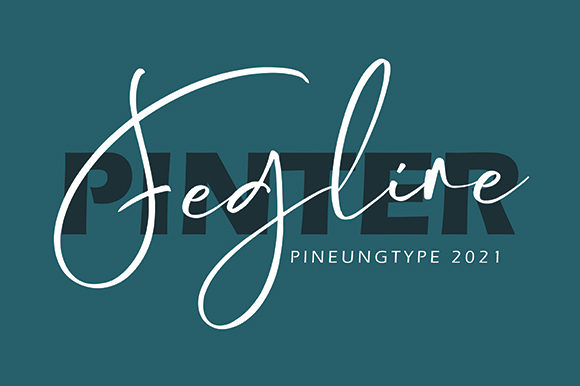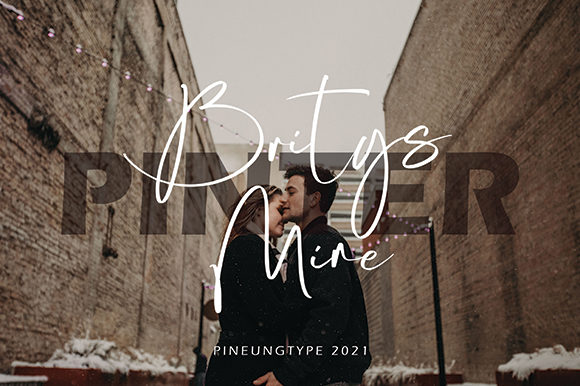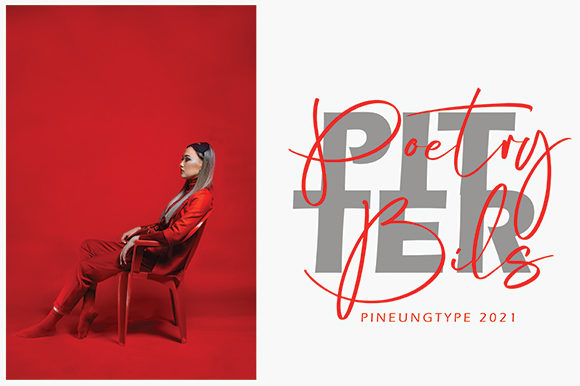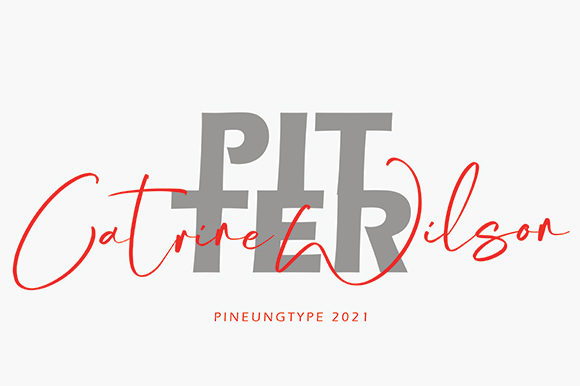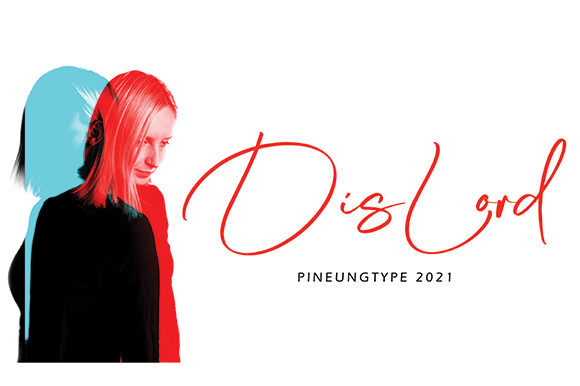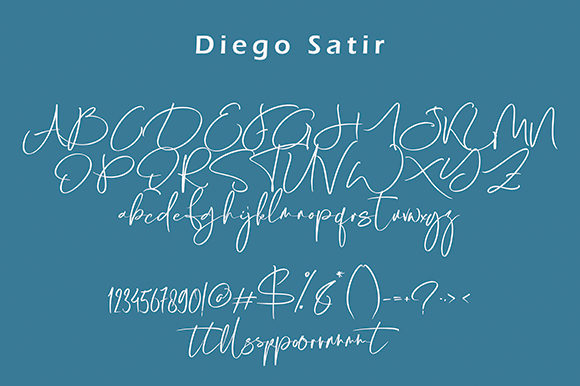
Diego Satir Font
About Diego Satir Font
Introducing Diego Satir, a thin and elegant handwritten font that exudes sophistication and grace. With its delicate letterforms and refined style, Diego Satir is the perfect choice for creating original and outstanding designs.
The slender and graceful strokes of Diego Satir give it a distinct and sophisticated look. Whether you’re working on branding projects, logos, invitations, wedding stationery, or any other design that requires a touch of elegance, Diego Satir will elevate your creations to new heights.
The refined nature of Diego Satir makes it well-suited for designs that seek a balance between minimalism and sophistication. Its thin lines and subtle curves add a touch of delicacy, allowing the font to make a subtle yet powerful statement. The clean and elegant letterforms make it versatile for various design styles, from modern and contemporary to timeless and classic.
Diego Satir’s versatility extends to a wide range of applications. Its understated elegance makes it an excellent choice for high-end fashion branding, luxury products, beauty and cosmetics, and upscale events. It also pairs beautifully with editorial designs, magazine layouts, and typography-focused projects.
With Diego Satir, you can create designs that are truly unique and exceptional. The font’s distinctive style sets it apart and adds a touch of sophistication to your work. Its versatility allows it to adapt to different design contexts, providing you with endless possibilities to explore and experiment.
Whether you’re designing for print or digital media, Diego Satir will make a lasting impression. Its thin and elegant appearance draws attention while maintaining a sense of refinement. It captures the essence of elegance and brings a touch of sophistication to every design it graces.
Choose Diego Satir as your go-to font for original and outstanding designs. Its thin and elegant nature will elevate your projects and make them stand out from the crowd. Embrace the beauty of its delicate letterforms and create designs that leave a lasting impact.